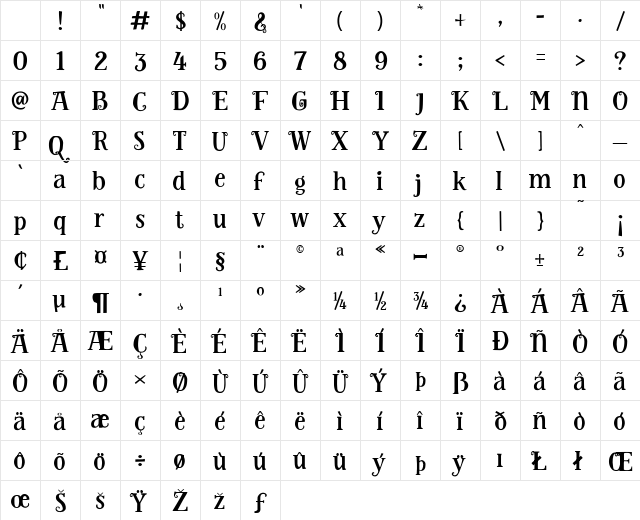
The Garden of Lights is a composed and adaptable typeface that performs quietly and consistently across a wide range of design contexts. Its slender proportions lend an understated elegance to any composition.